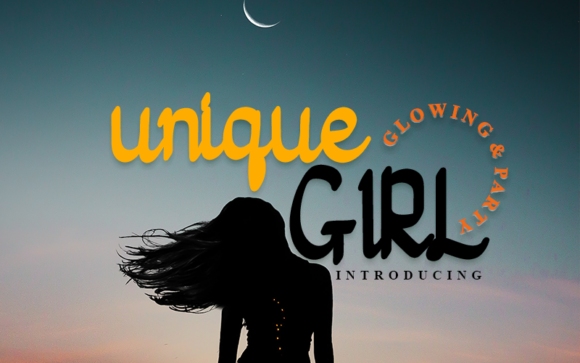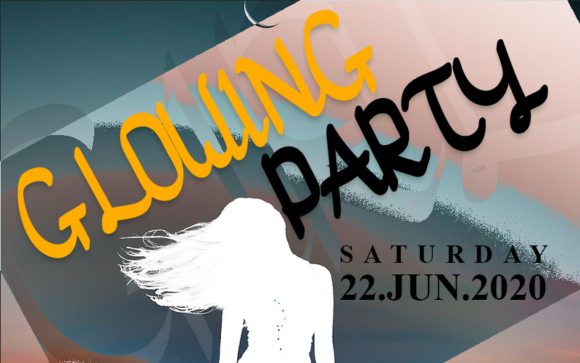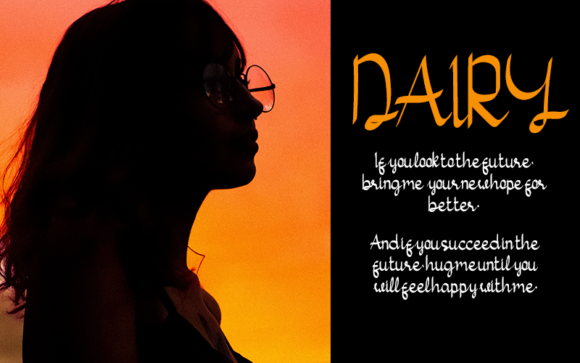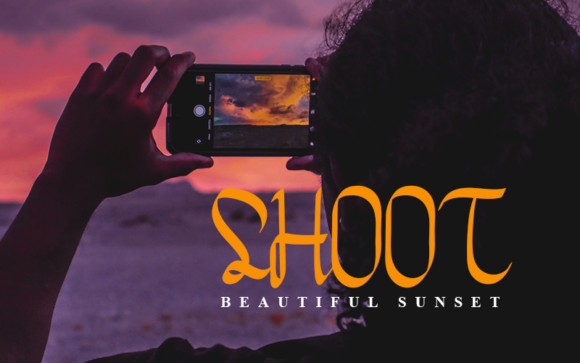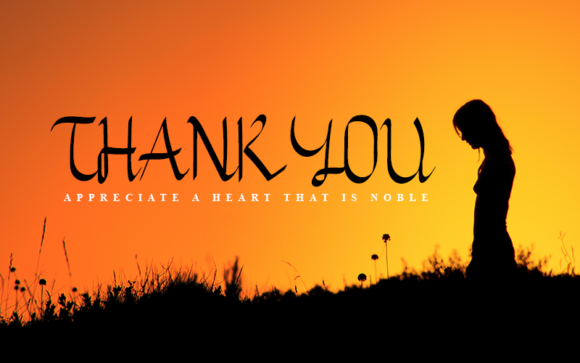
Unique Girl Font
About Unique Girl Font
Unique Girl embodies fun, quirkiness and authenticity. This enchanting handwritten font will turn any creative idea into a true standout.